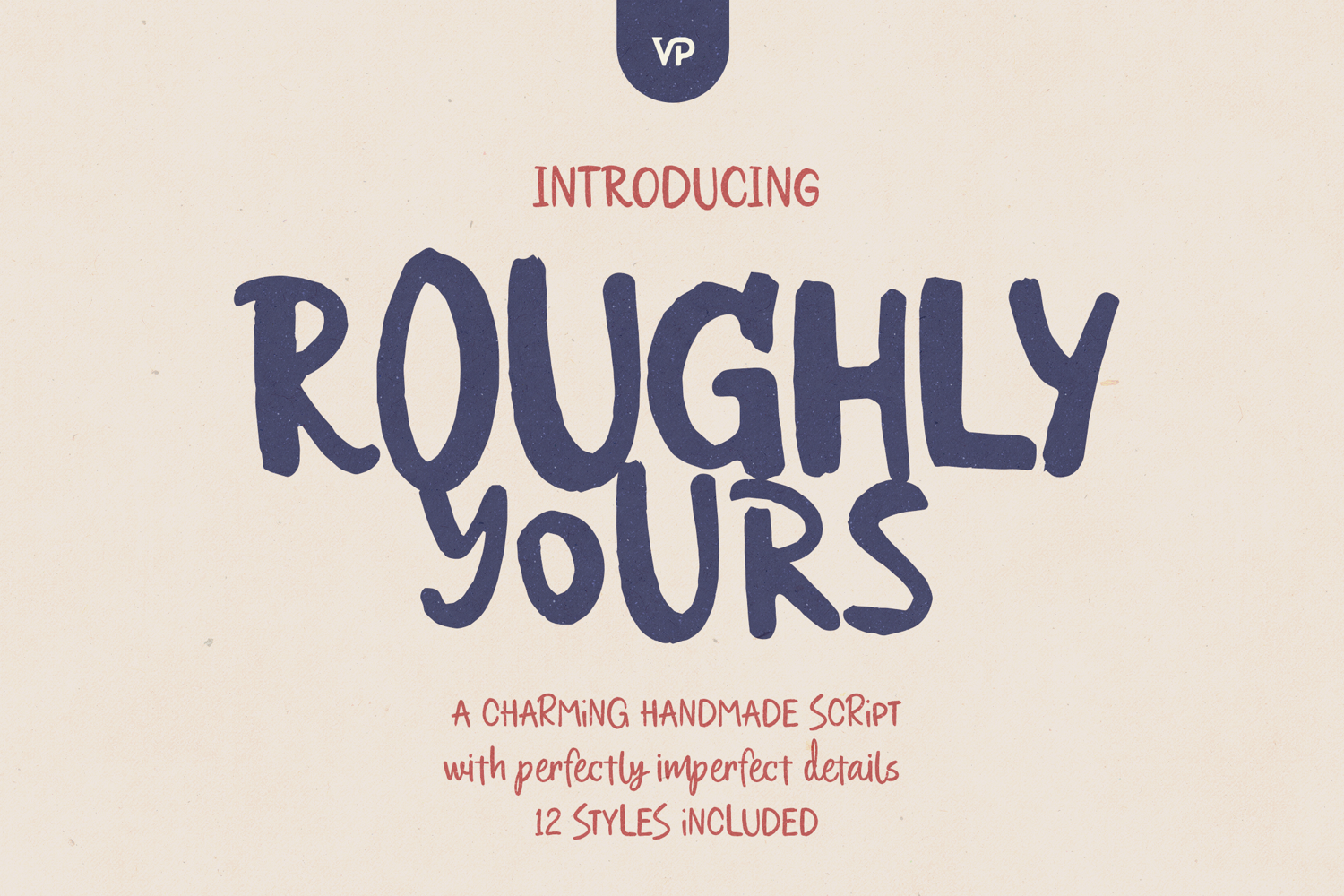
Roughly Yours - Organic Script Font
Meet Roughly Yours, a charming handmade script font family crafted to celebrate the beauty of perfectly imperfect lettering. Inspired by hand-painted signs, cozy cafés, artisan packaging, children's books, farmers markets, vintage posters, and creative branding, Roughly Yours brings warmth, personality, and authenticity to every design.
Featuring 12 unique styles, Roughly Yours gives designers the flexibility to create playful, organic, and expressive typography with a handcrafted feel. Each style offers its own character while maintaining a cohesive handwritten aesthetic, making it ideal for branding systems, packaging collections, social media graphics, book covers, restaurant menus, product labels, greeting cards, posters, and marketing materials.
The letterforms are intentionally irregular and natural, capturing the charm of real handwriting without sacrificing readability. Its friendly, approachable appearance makes it especially effective for lifestyle brands, food businesses, children's products, boutique shops, handmade goods, and creative entrepreneurs looking to stand out with genuine personality.
With extensive multilingual support covering 87+ languages, Roughly Yours is designed for creators worldwide and includes a broad range of accented characters for international projects.
• 12 handcrafted font styles
• Authentic handmade script aesthetic
• Uppercase & lowercase characters
• Numbers & punctuation
• Symbols included
• Multilingual support (87+ languages)
• Perfectly imperfect organic letterforms
• Easy to mix and match styles
• Ideal for logos, packaging, posters, branding, social media, books, cafés, bakeries, restaurants, and artisan products
Perfect For
• Artisan Brands
• Food Packaging
• Bakery Logos
• Coffee Shops
• Farmers Markets
• Children's Books
• Bookstores
• Restaurant Menus
• Handmade Products
• Organic Businesses
• Social Media Graphics
• Vintage Posters
• Creative Branding
• Product Labels
• Greeting Cards